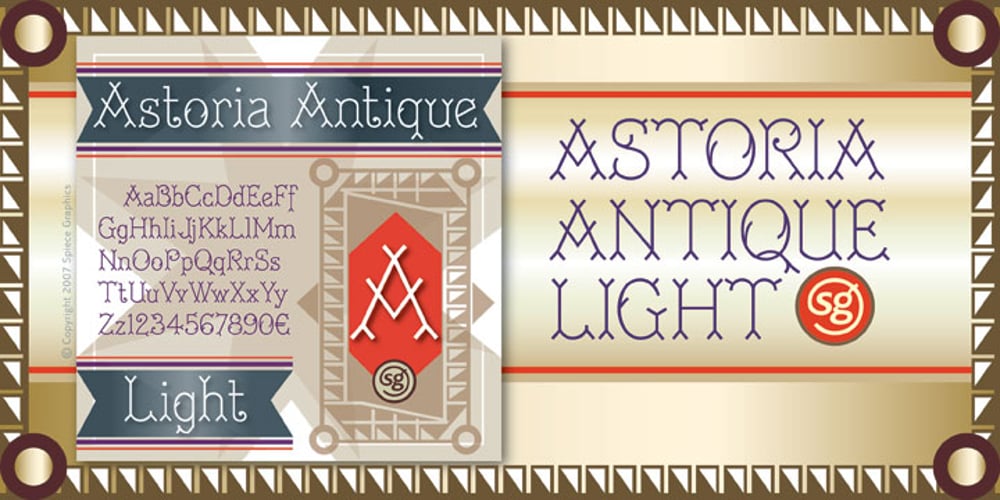
Astoria Antique SG
Astoria Antique SG font
Astoria Antique SG Font Family was designed by published by Spiece Graphics. Astoria Antique SG contains 1 styles and family package options. The ornamented and magnificent type design used with the color plates of Owen Jones’ “The Grammar of Ornament” has served as a model for this nineteenth century typeface. Astoria Antique possesses an intricate and spidery-like quality. Its v-shaped wedge endings make it look like something straight out of an old curiosity shop. In addition, lowercase letters have been added for design convenience. Astoria Antique will make a great choice whenever a period or Victorian look is desired. Astoria Antique is also available in the OpenType Std format. Some new characters have been added to this OpenType version. Advanced features currently work in Adobe Creative Suite InDesign, Creative Suite Illustrator, and Quark XPress 7. Check for OpenType advanced feature support in other applications as it gradually becomes available with upgrades.